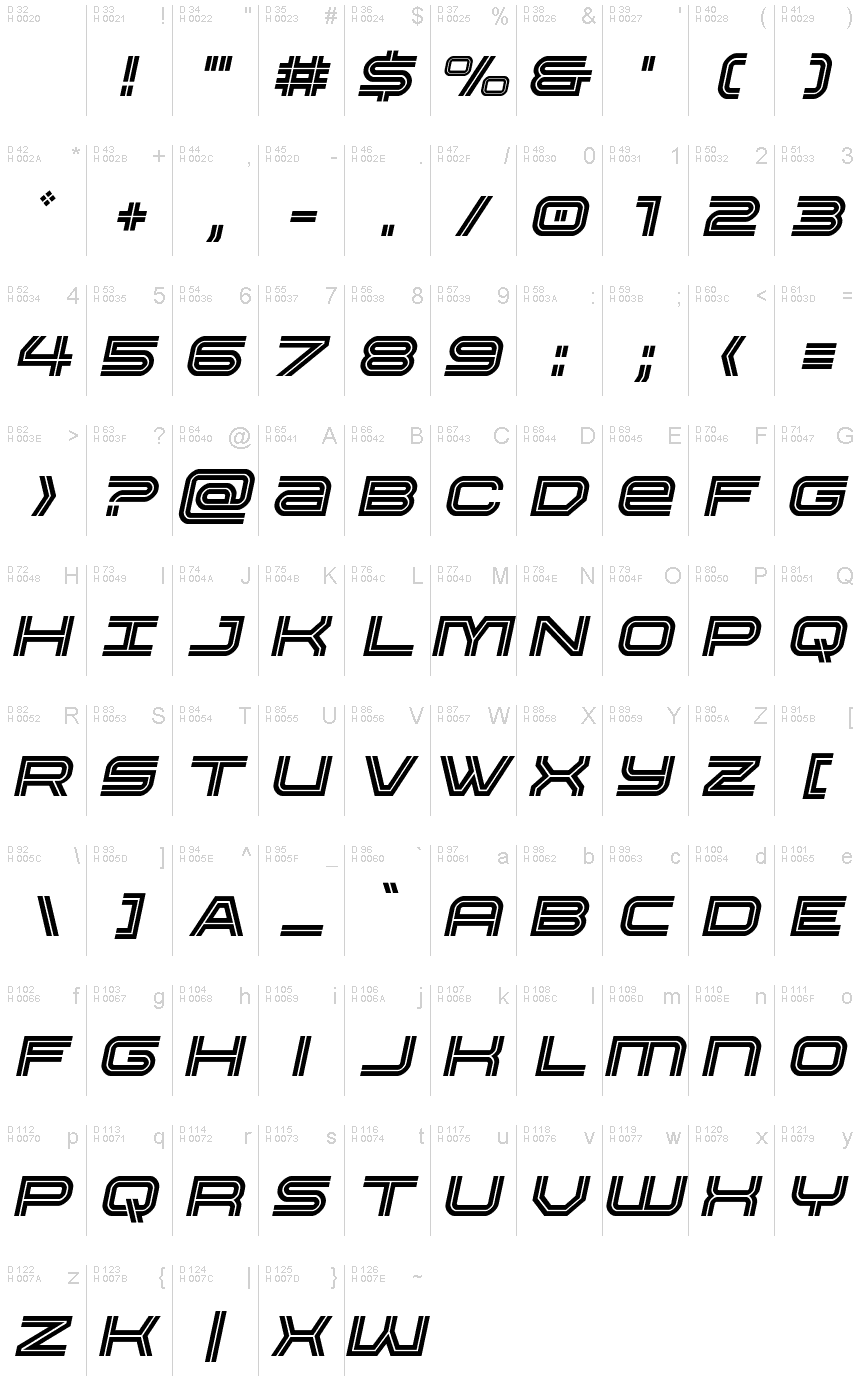
Gran Torino Italic
Gran Torino Italic is a wide techno display font designed by Daniel Zadorozny. It's perfect for creating eye-catching titles and headlines, or adding boldness to flyers, posters, and logos. Its unique style makes it ideal for projects that require a modern and edgy look.